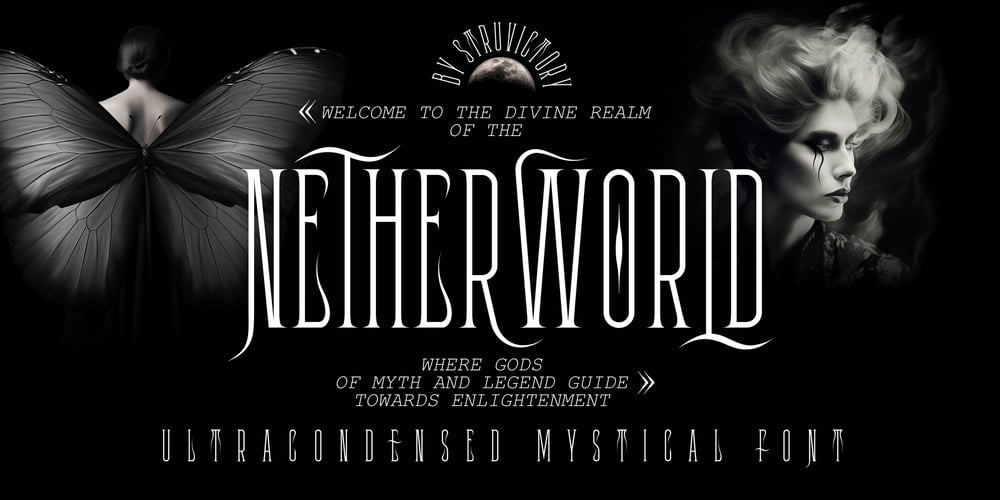
Netherworld Mystical Font Family was designed by Viktoryia Strukouskaya, Viktor Strukouski and published by Struvictory.art. Netherworld Mystical contains 1 styles and family package options. Discover Netherworld, a new condensed font with mystical serifs and swashes, perfect for all your dark-themed designs. With its elegant and enigmatic curves, this font brings an air of mystery and intrigue to your projects. Whether you’re designing candle labels, album covers, or delving into the realms of the occult, this font will captivate your audience and transport them to a world of enchantment. Its unique style and intricate detailing make it ideal for witchcraft stores, tarot card designs, and other mystical endeavors.